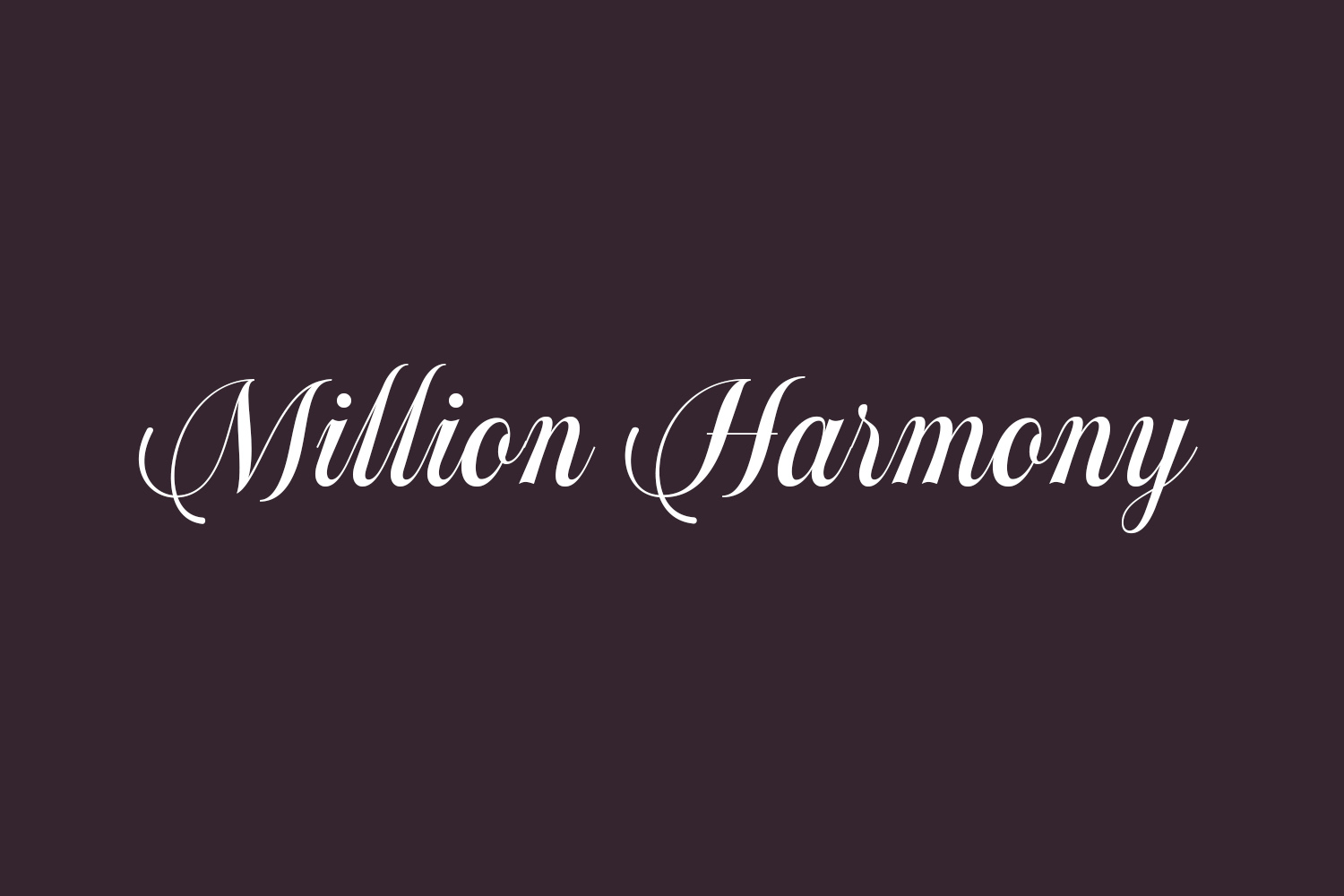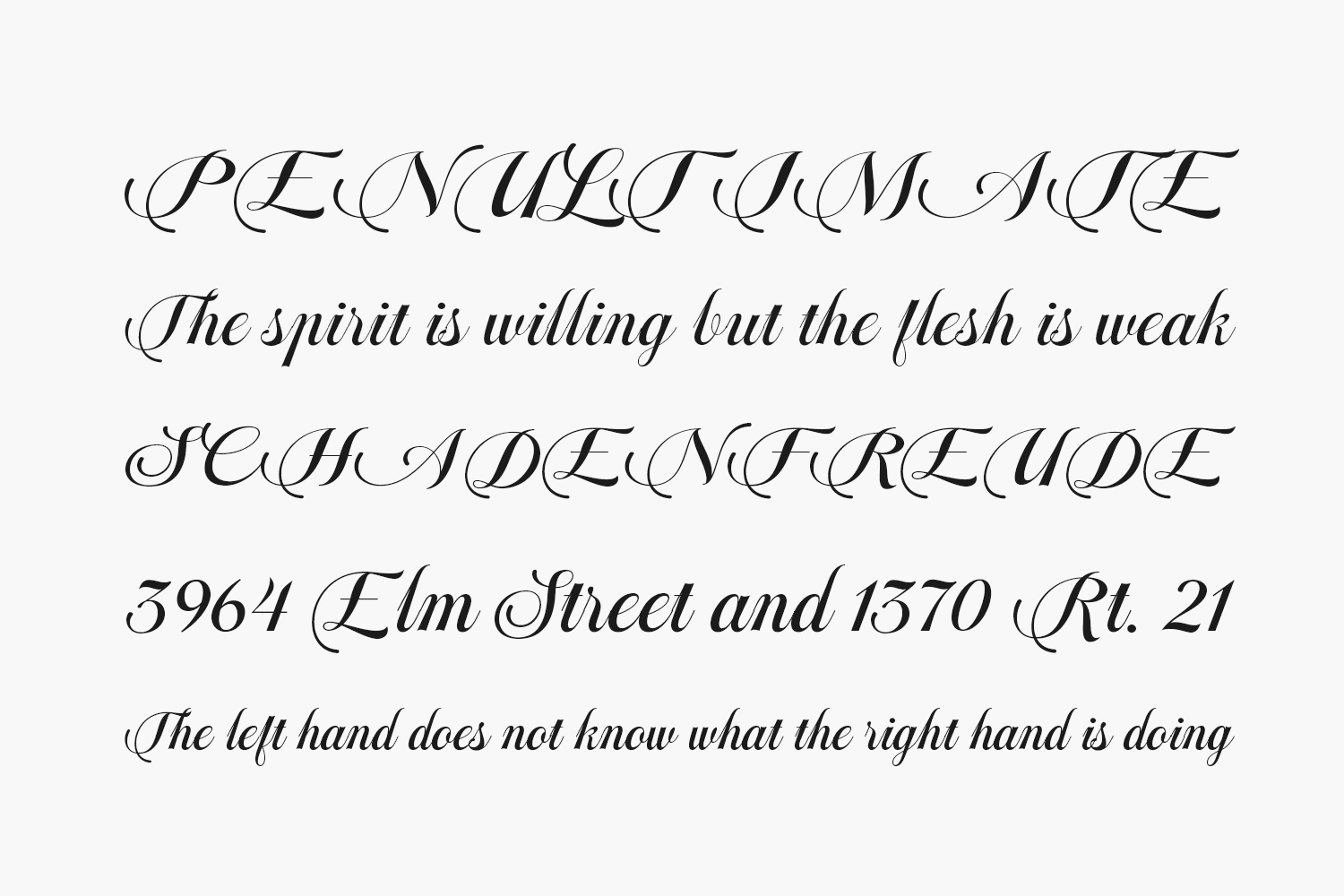
Million Harmony Free Font is an enchanting handwritten font. This versatile script font has a wide spectrum of applications ranging from greeting cards to headlines and is guaranteed to add a romantic feel to your next project. Million Harmony Free Font was designed by Handpik and is free for personal use only. Please purchase the full version for commercial use.